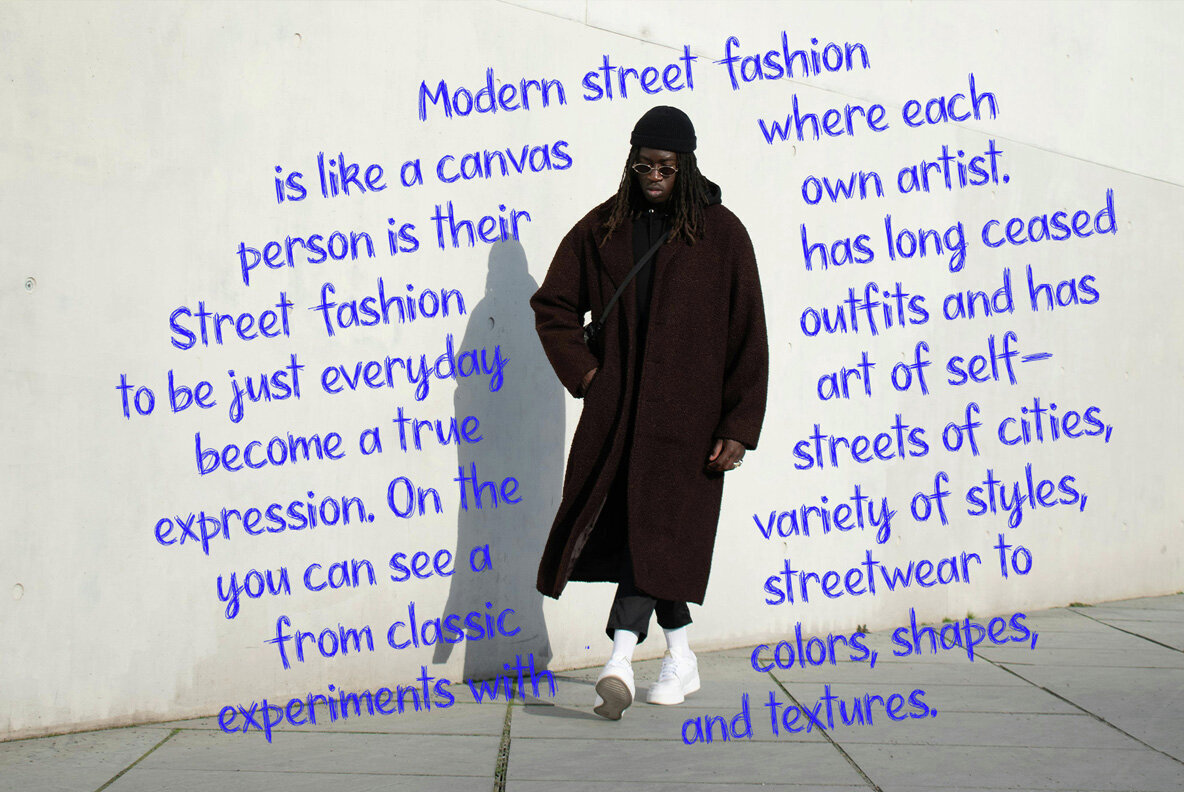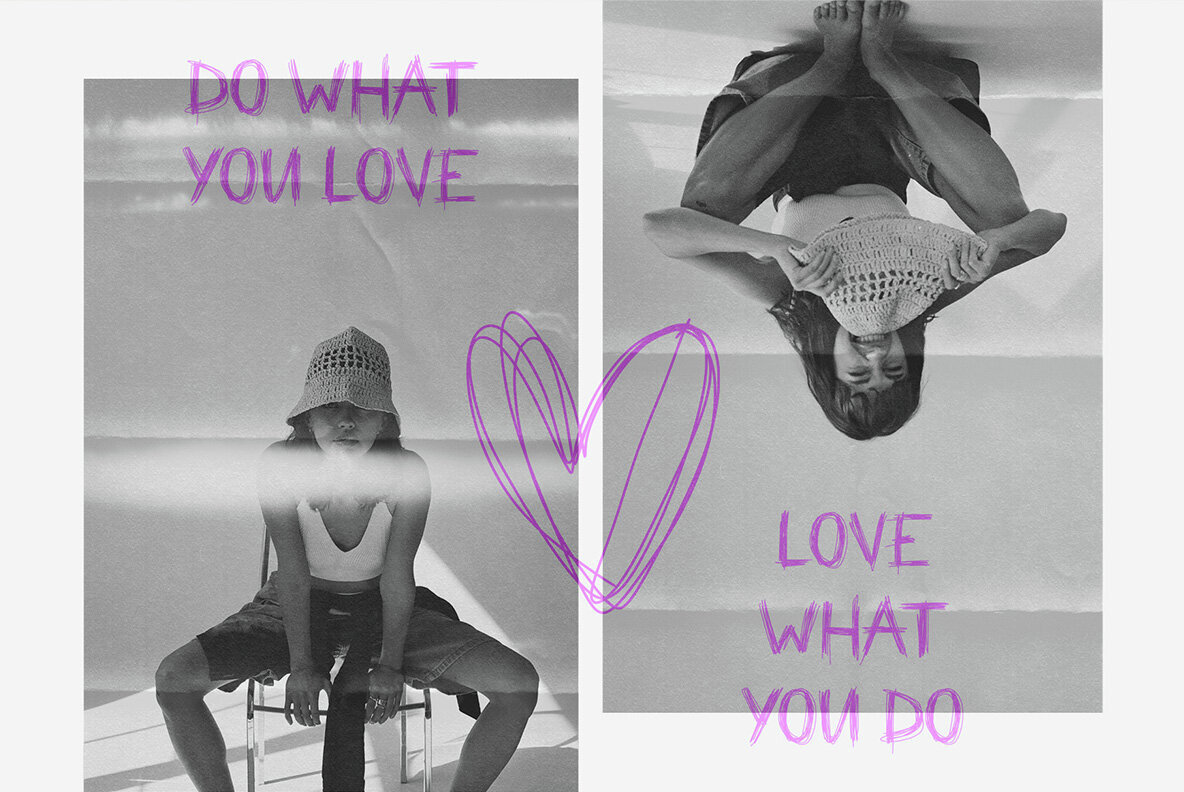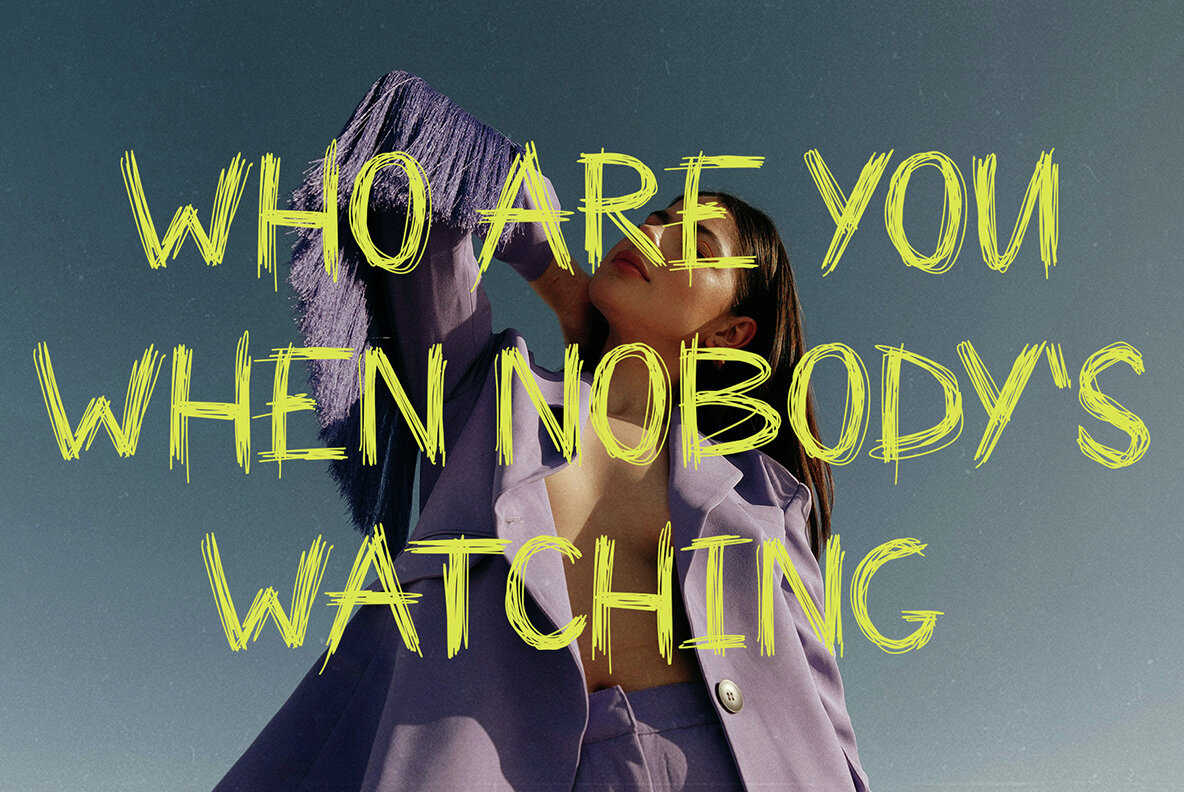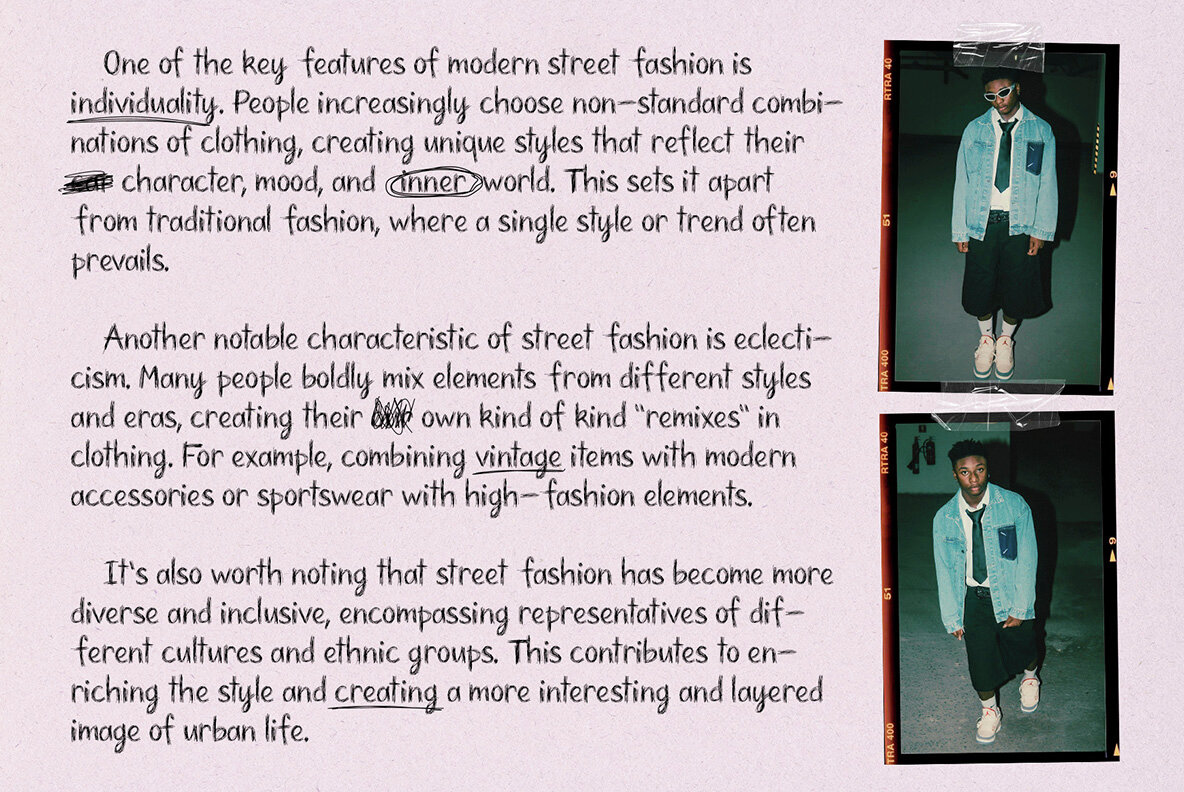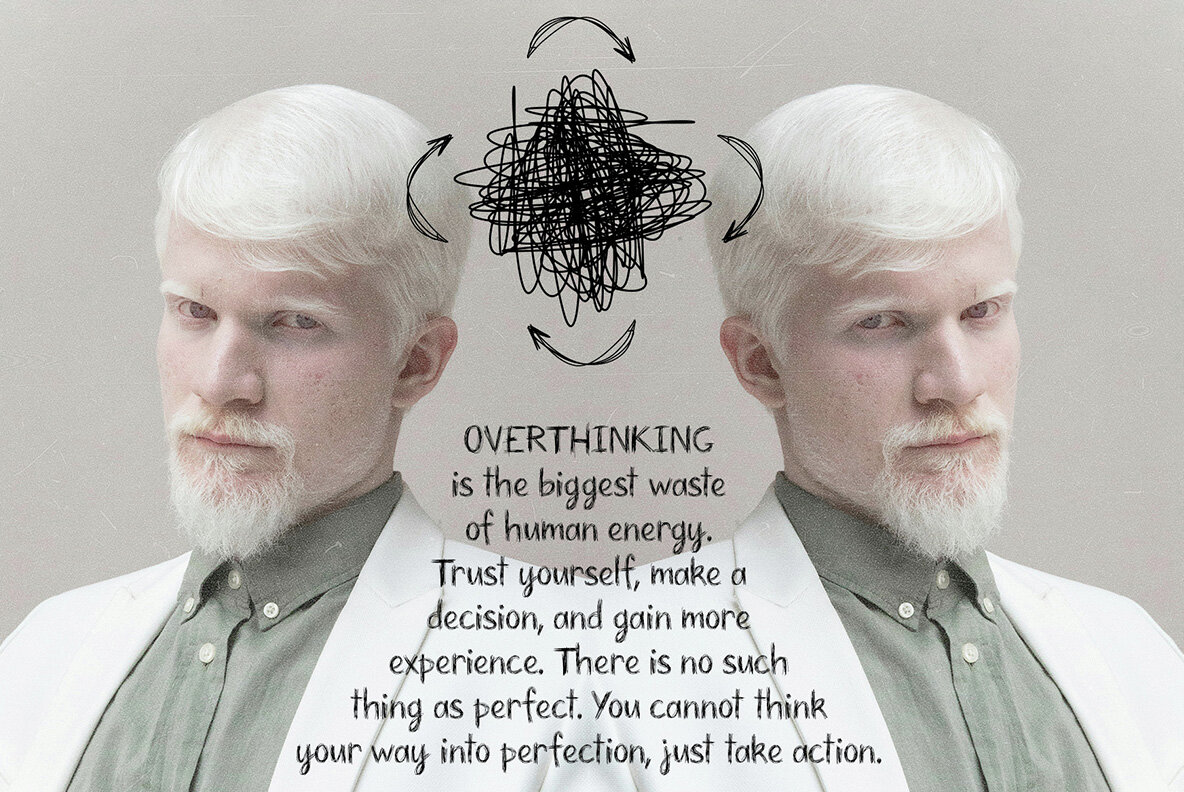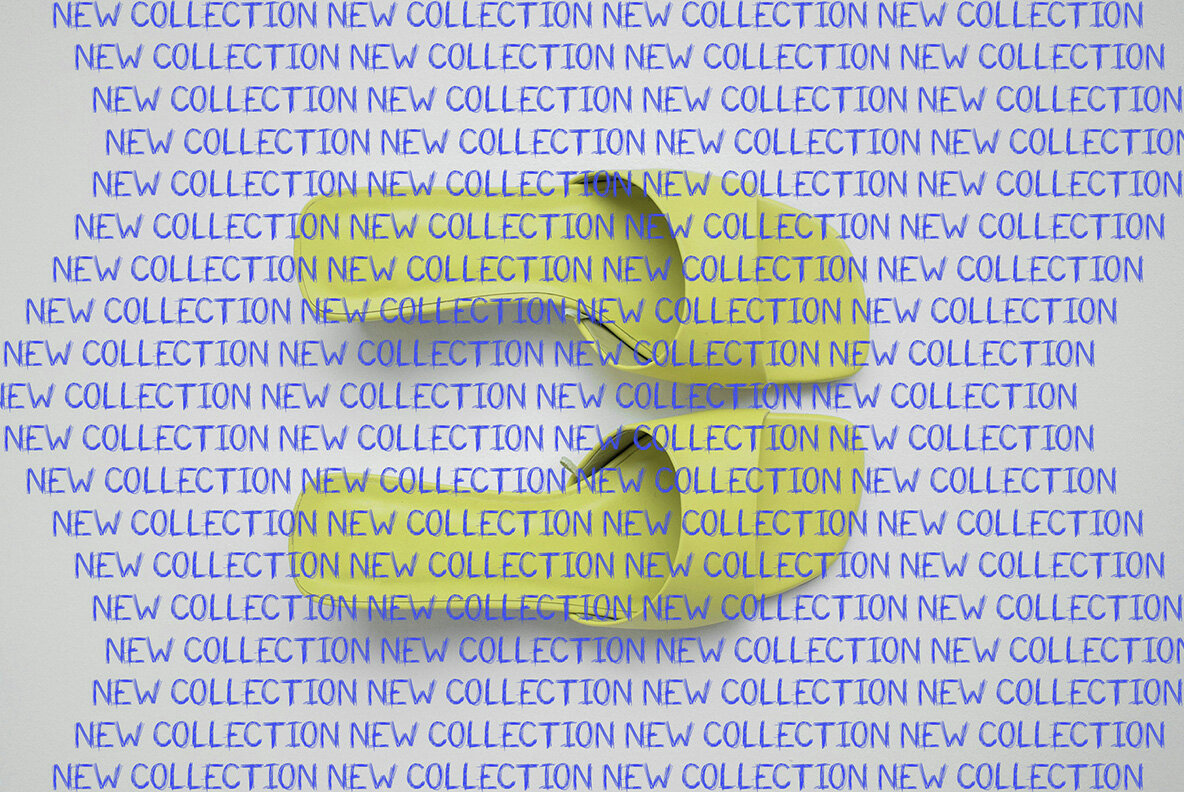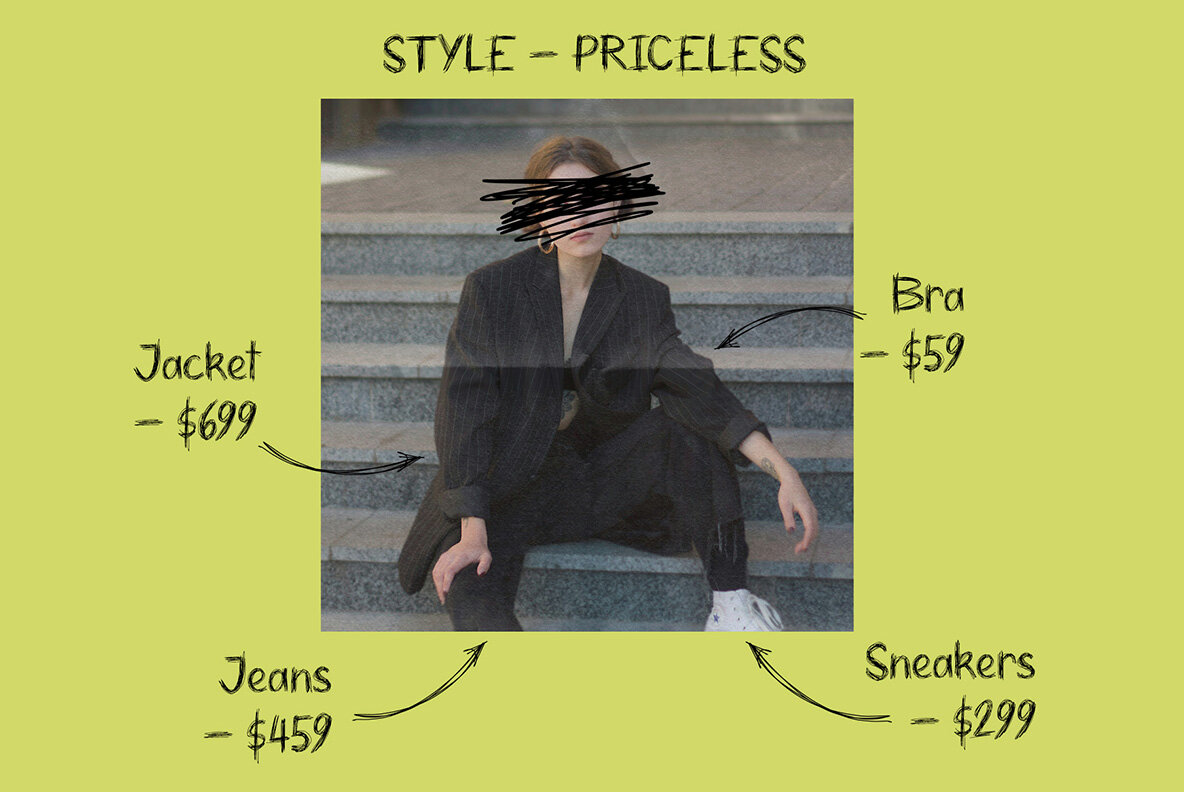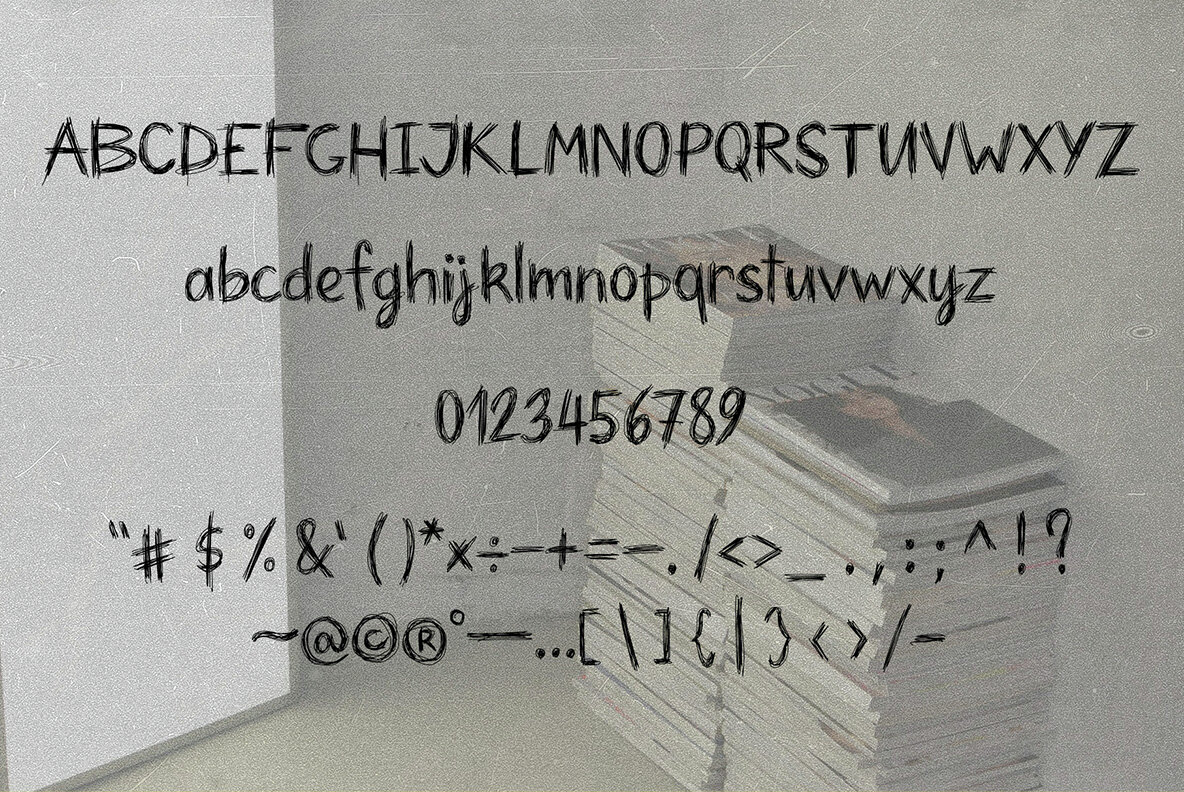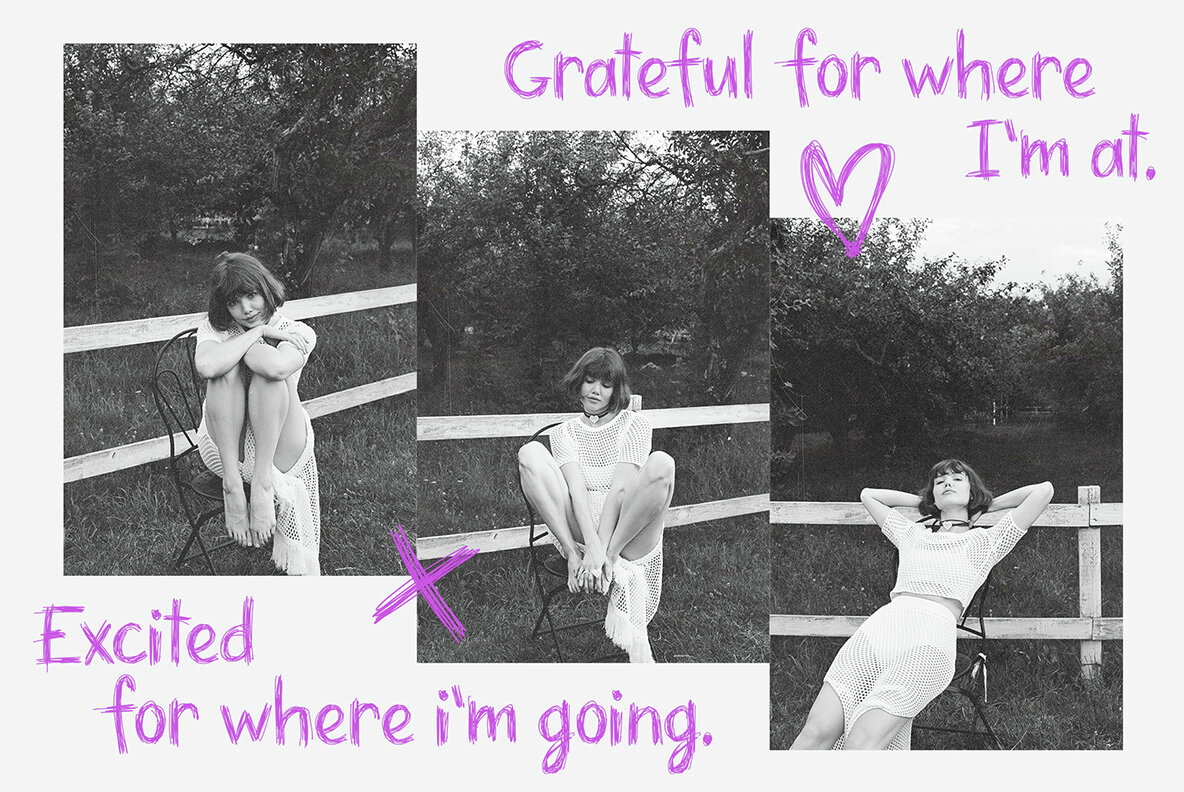
Feisty Font
Imagine a solitary guy, a bit of a fashionista, art in motion, blending the unblendable. His solitude became his strength, and his style became a legend. Now, imagine this as a font, His name is a FEISTY - scribble handwriting font. You get: